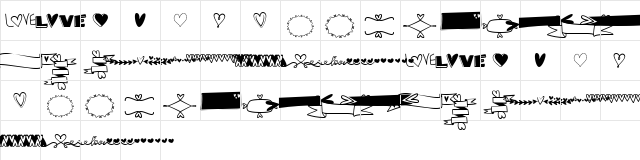
MF Heart Stuff Regular
Design Context for MF Heart Stuff Typeface
MF Heart Stuff is a composed and adaptable typeface that performs quietly and consistently across a wide range of design contexts.